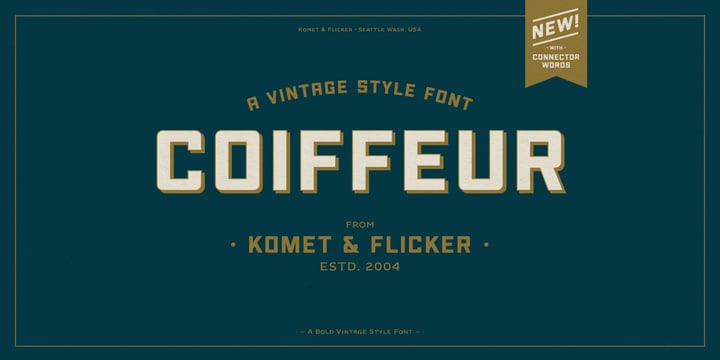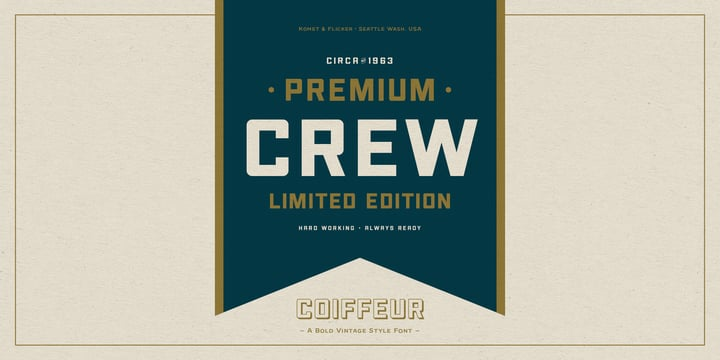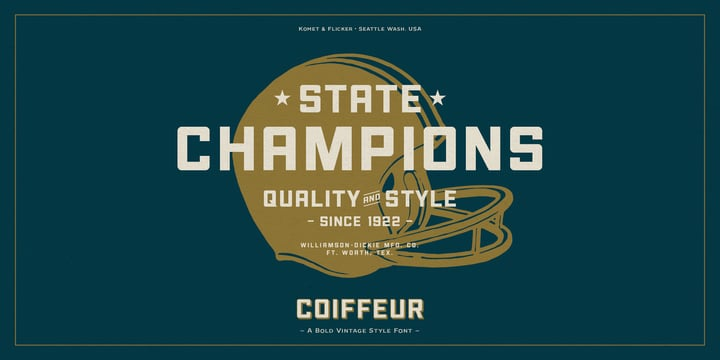
Coiffeur Font Family
Coiffeur Font FamilyCOIFFEUR is a bold vintage-style sans-serif display font that works great for logos, packaging, branding, menus, advertising, and posters. The lowercase letter set is a reduced version of the uppercase set for small caps use. In Illustrator, the custom connecting word set can easily be accessed in the “Type → Glyphs” panel and in Photoshop through “Type → Panels → Glyphs Panel”.